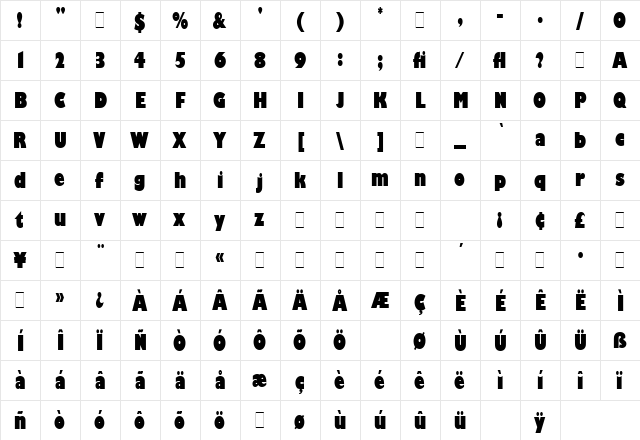
Gill Kayo Condensed LET Plain
Design Context for Gill Kayo Condensed LET Typeface
Gill Kayo Condensed LET is a composed and adaptable typeface that performs quietly and consistently across a wide range of design contexts. The condensed width makes it efficient for tight spaces without sacrificing legibility.